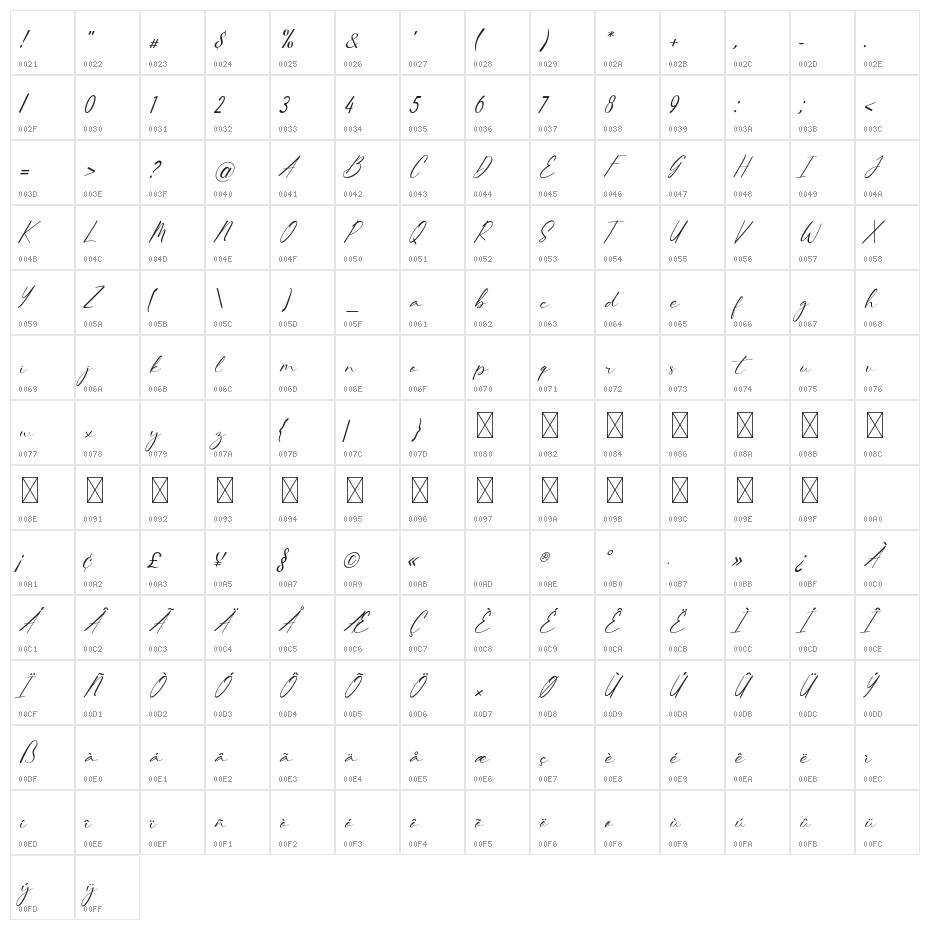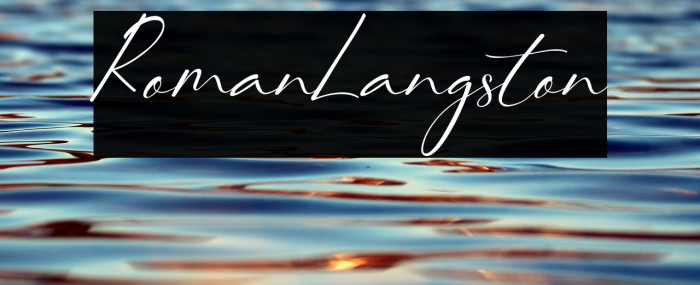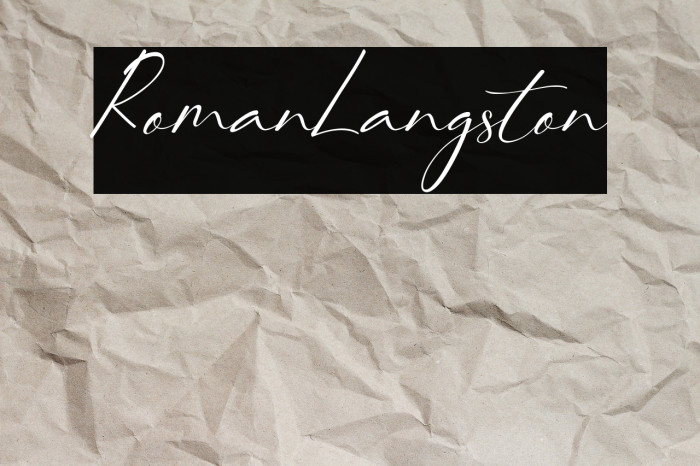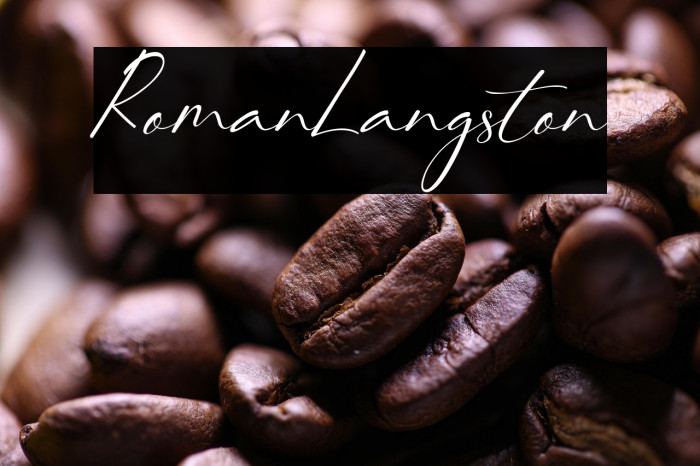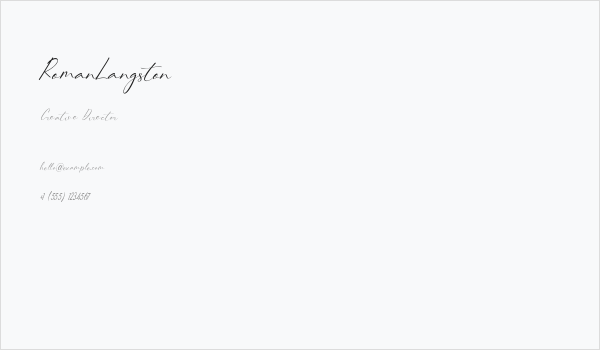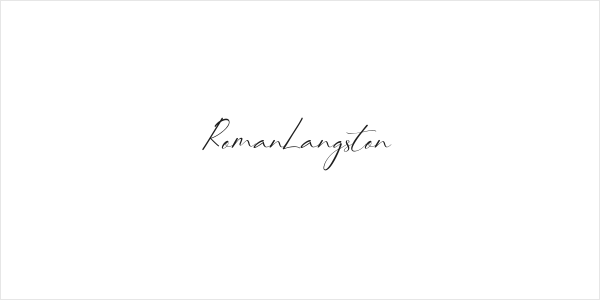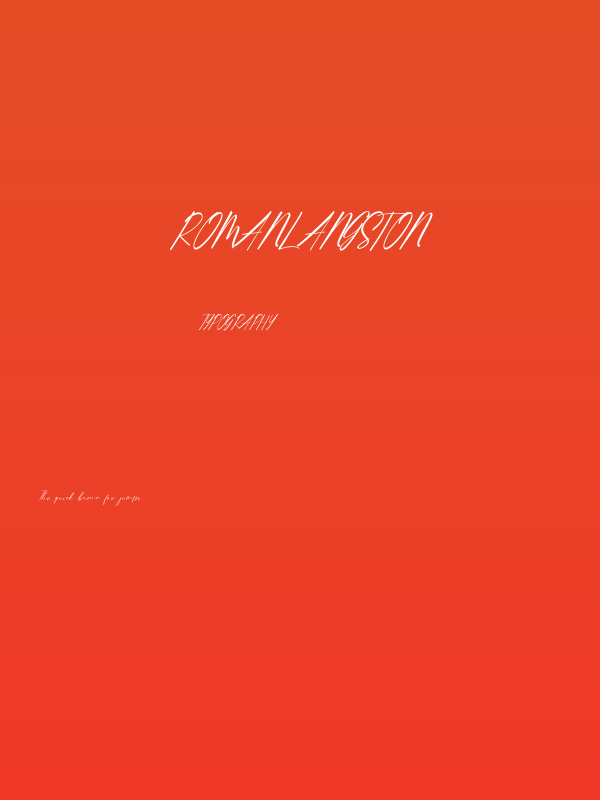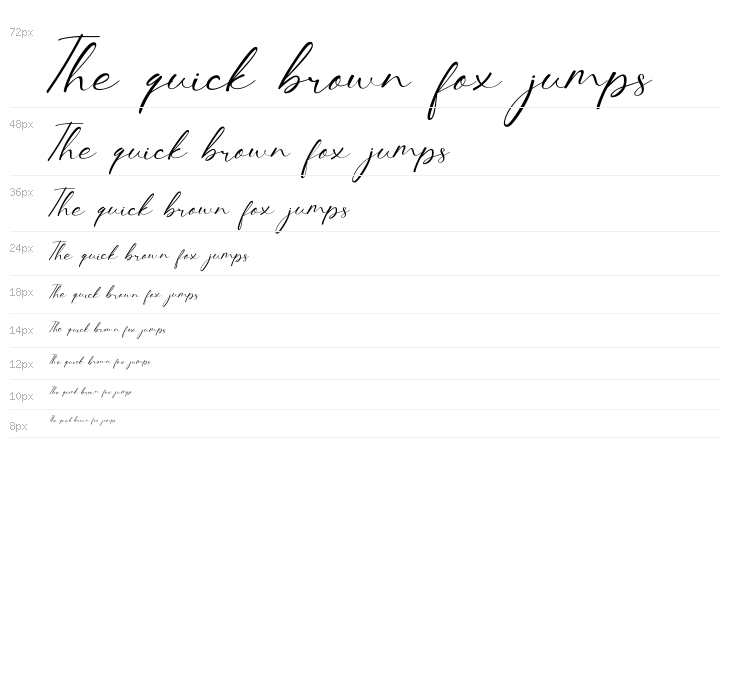
RomanLangston Font
RomanLangston Description
This elegant script font features a flowing, cursive style with a sophisticated flair. The uppercase letters are tall and slightly slanted, giving a sense of movement and grace. The lowercase letters are delicately connected, enhancing the fluidity of the text. Numbers are clear and consistent with the overall style, while special characters maintain the same elegant curves. The font's thin strokes and high contrast between thick and thin lines add to its refined appearance, making it ideal for formal invitations, branding, and decorative purposes.
| Overall Style | Elegant, Decorative |
| Use Case | Headlines, Invitations, Branding |
| Proposed Projects | Ideal for wedding invitations, elegant branding, greeting cards, and decorative headings. |